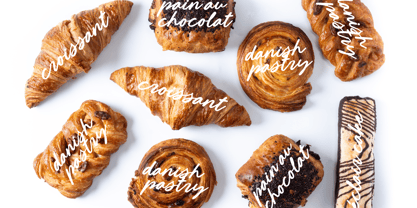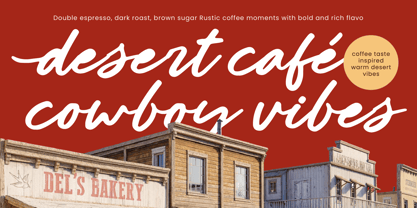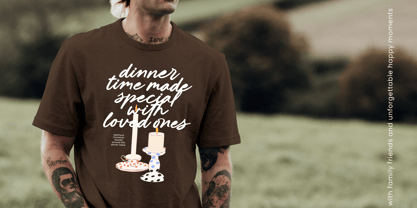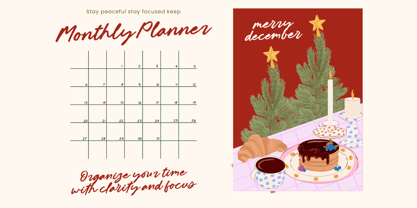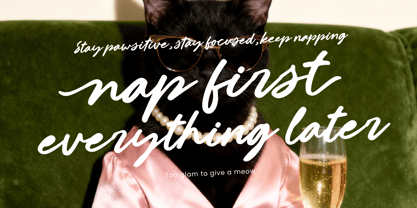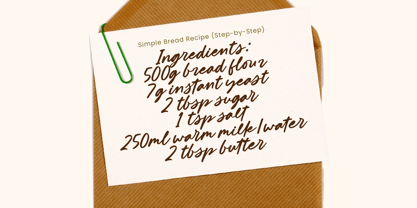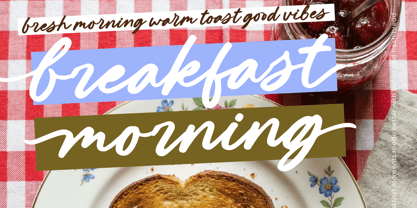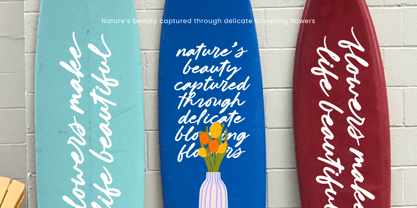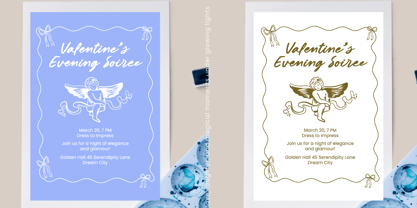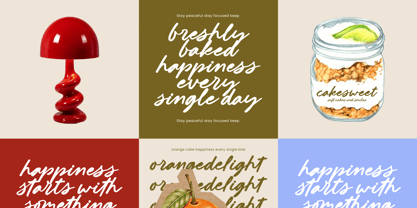
Barlinotes
by Letterena Studios
The Barlinotes Font Family was designed by Heru Utama Putra and published by Letterena Studios. Barlinotes contains 2 styles and family package options. More about this family
Barlinotes - New Handwritten Script Font. This typeface embodies a handcrafted charm and fluid strokes that bring a sense of natural rhythm to every digital canvas. Its medium-weight monoline aesthetic ensures maximum legibility while maintaining a personal, intimate feel that resonates with modern audiences seeking authenticity. Discover the ultimate solution for sophisticated branding and premium identity design. Barlinotes - New Handwritten Script Font is perfect for luxury packaging, editorial layouts, and high-end wedding stationery where elegance is paramount. Its versatile nature also makes it an excellent choice for impactful social media graphics and bespoke apparel branding, providing a signature look that feels both unique and professional.